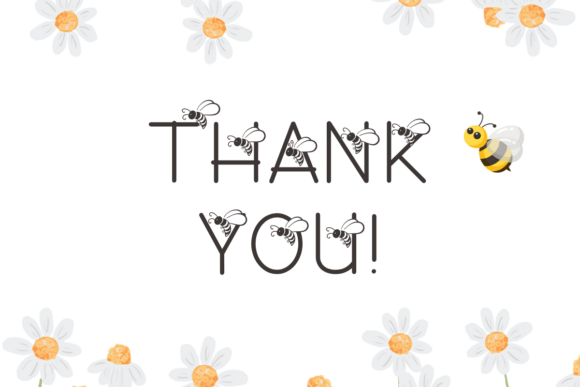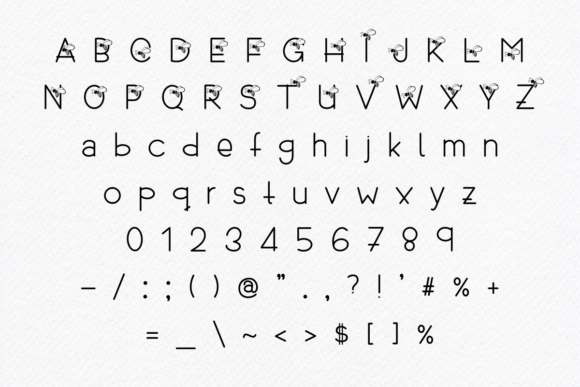
Introduction to Love Bee Font
Have you ever found yourself in a creative flow, surrounded by colorful pens, scraps of paper, and an endless supply of imagination? For many designers, this moment is the spark that sets their creative projects ablaze. It’s the thrill of bringing a new idea to life, of watching a blank page transform into a beautiful work of art. And for those who love typography, there’s nothing quite like discovering a high-quality font that elevates their design to the next level.
Enter the Love Bee Font, a gorgeous decorative font that’s perfect for adding a touch of whimsy and personality to any project. With its transparent background and free download availability, this design resource is a treasure trove for designers looking to add some extra flair to their work.
Key Features of Love Bee Font
- High-quality, elegant design resource perfect for creative projects, including wedding invitations, greeting cards, and more.
- Unique, hand-drawn design with a transparent background, allowing for easy layering and customization in your design project.
- Includes a range of characters, including uppercase and lowercase letters, numbers, and special characters, making it a versatile design resource.
- Perfect for designers looking for a unique, high-quality design resource to add a touch of elegance and sophistication to their creative project.
Honest Review: Love Bee Font
As a designer, I’m always on the lookout for high-quality design resources that can elevate my creative projects. Recently, I stumbled upon the Love Bee Font, and I was excited to see how it would perform.
First impressions: the font is super cute and playful, perfect for anything related to love, relationships, or flowers. I loved the unique and creative design, and the transparent background made it easy to customize and layer with other elements.
Limitations: ⚠️ The font is only available in a single style, which might limit its versatility for more complex design projects. Additionally, the font is not suitable for larger text sizes, as the characters can become distorted.
Overall, I’d say the Love Bee Font is a great addition to any designer’s toolkit. While it has some limitations, its unique design and ease of use make it a valuable resource for creative projects.
- Easy to use, even for beginners
- Perfect for small to medium-sized text
- Unique and creative design
Getting the Most Out of the Love Bee Font
For the best results, use the Love Bee Font in conjunction with a transparent background to create a high-quality design. This will allow you to see the intricate details of the font and create a beautiful, creative project.
The Love Bee Font is a versatile design resource that can be used in a variety of creative projects, including wedding invitations, birthday cards, and social media graphics. It’s also a great choice for designers looking for a unique and eye-catching font to add to their designs.